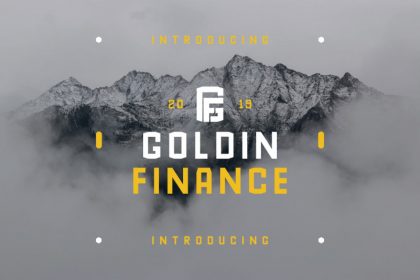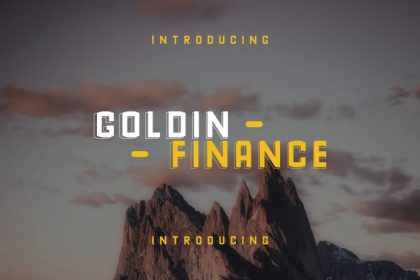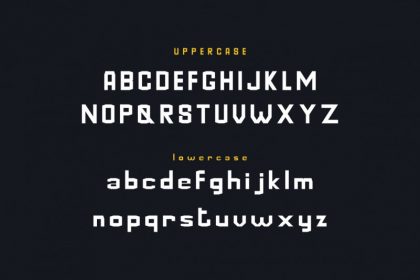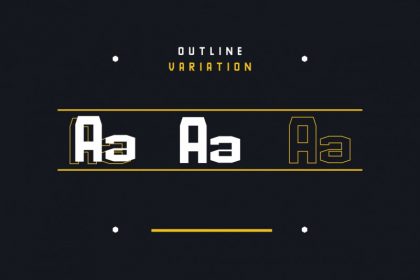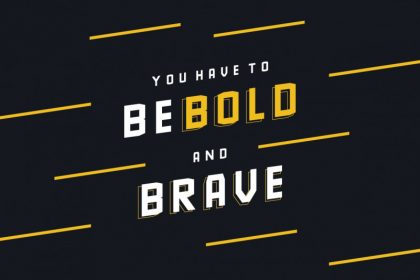
GoldinFinance Typeface
Where is your next destination? Starts your journey! Introducing, GoldinFinance Typeface! A Geometric Casual Sans Serif. It aint nothing like you have ever seen before. It’s great fonts for many purpose. From printing : magazine, flyer, headline, brochure etc. To online marketing : Quote, poster, social media headline, cover etc. Or even for branding : Logo, Bizcard etc You name it!
GoldinFinance Sans Serif Font